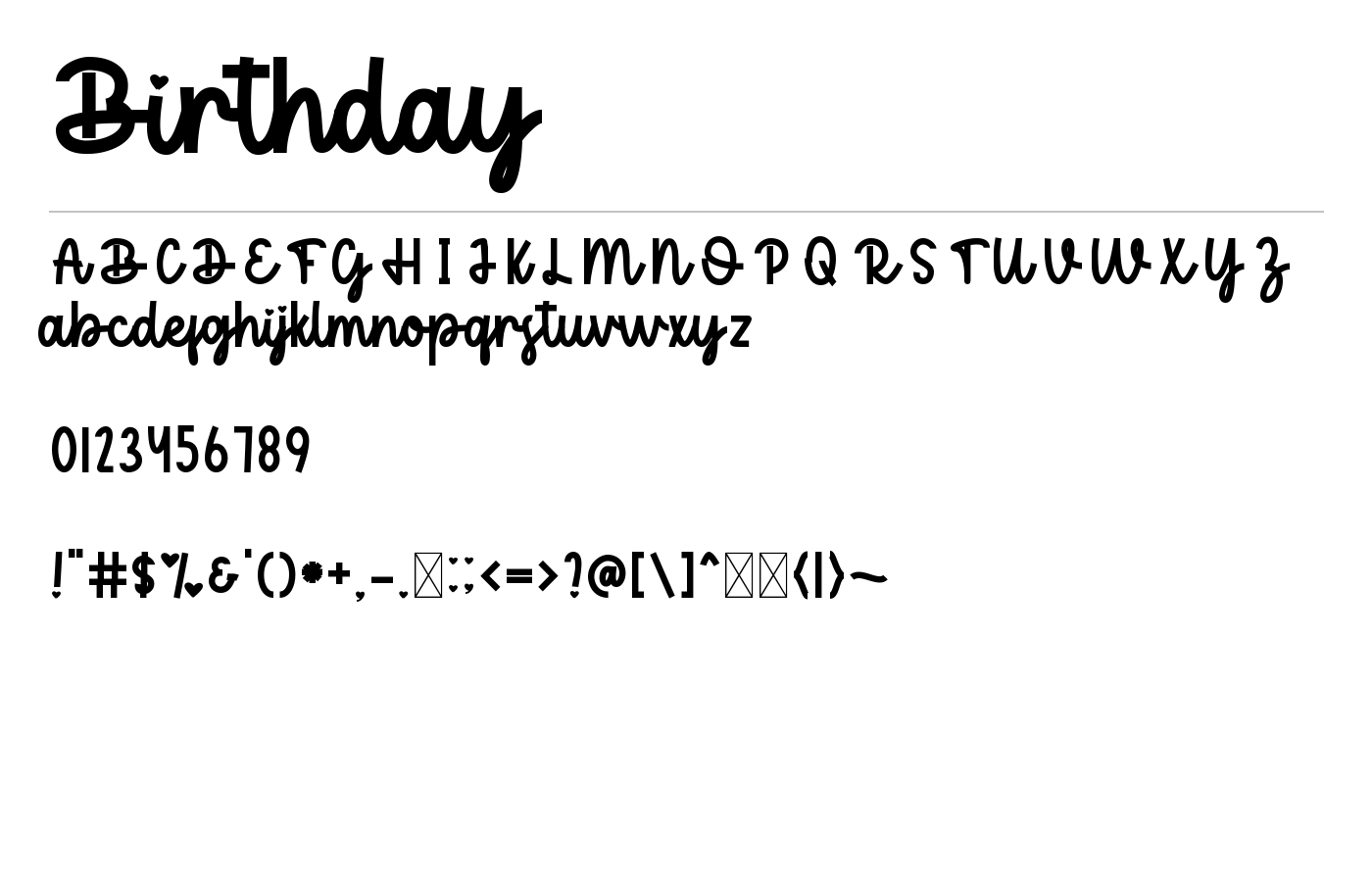
Birthday Font is a playful, casual script typeface with a bold, rounded weight and lively letterforms that mimic hand lettering. Its tall x-height, smooth curves, and whimsical touches like heart-shaped dots give it a friendly, celebratory feel, making it perfect for party invitations, greeting cards, and festive branding. This font works best where an informal, joyful vibe is desired, especially in headlines or decorative uses.
Birthday Font
About Birthday Font